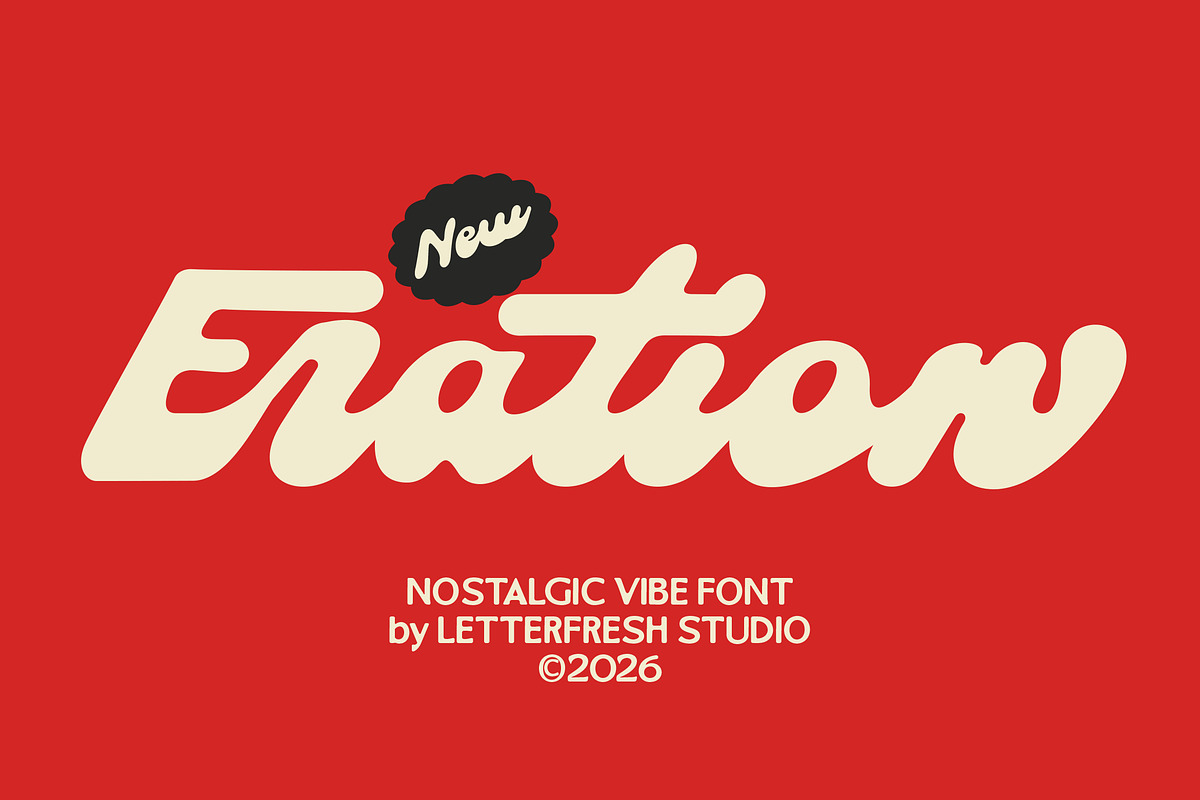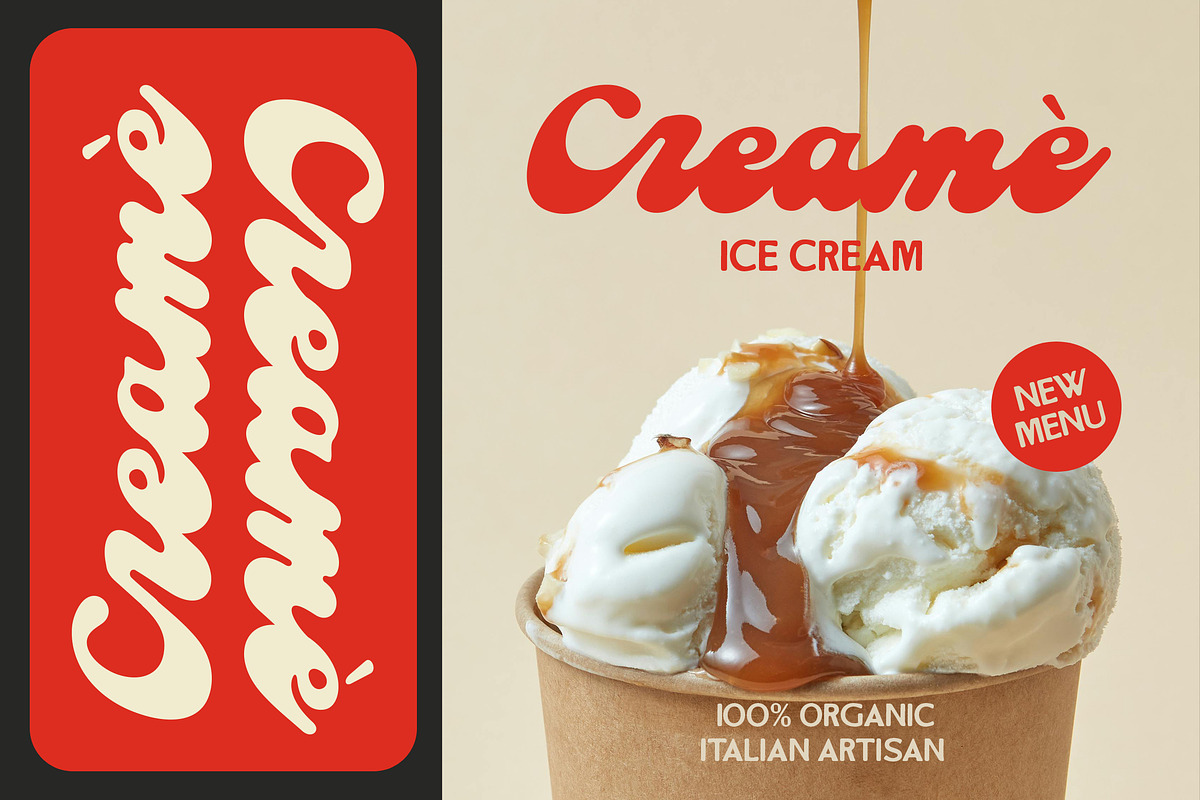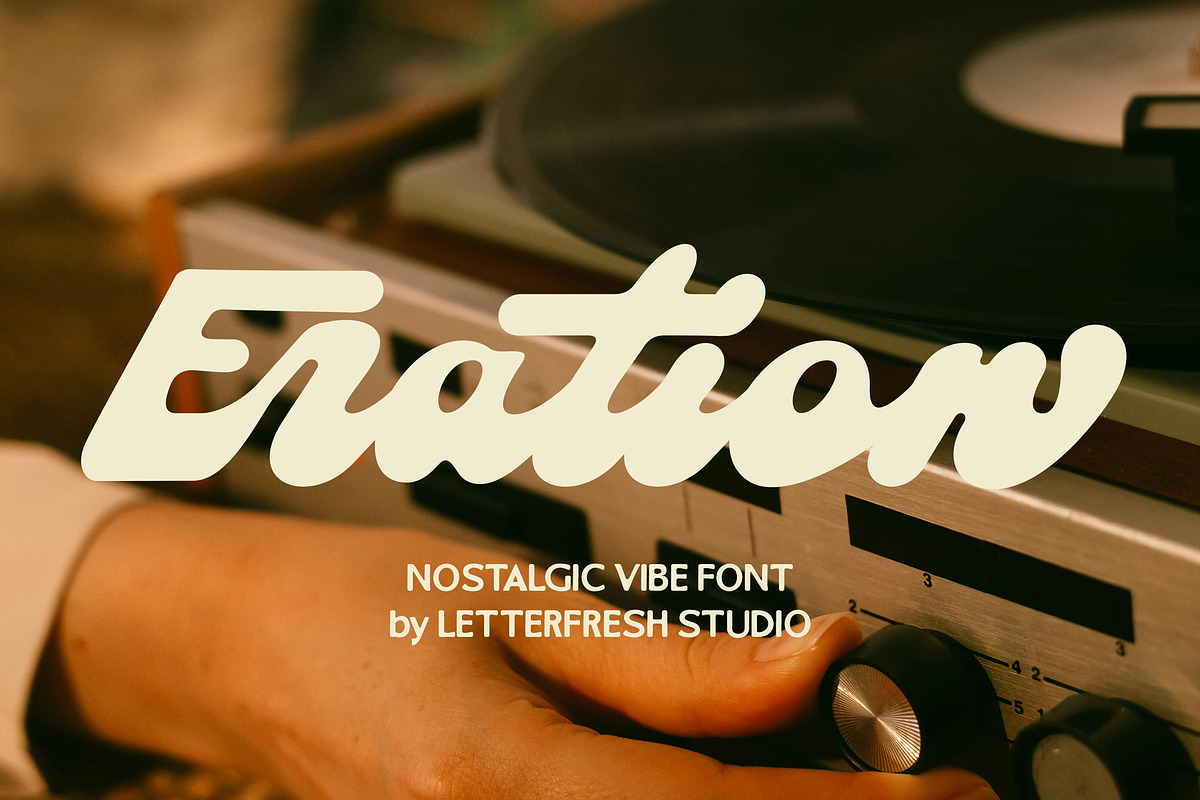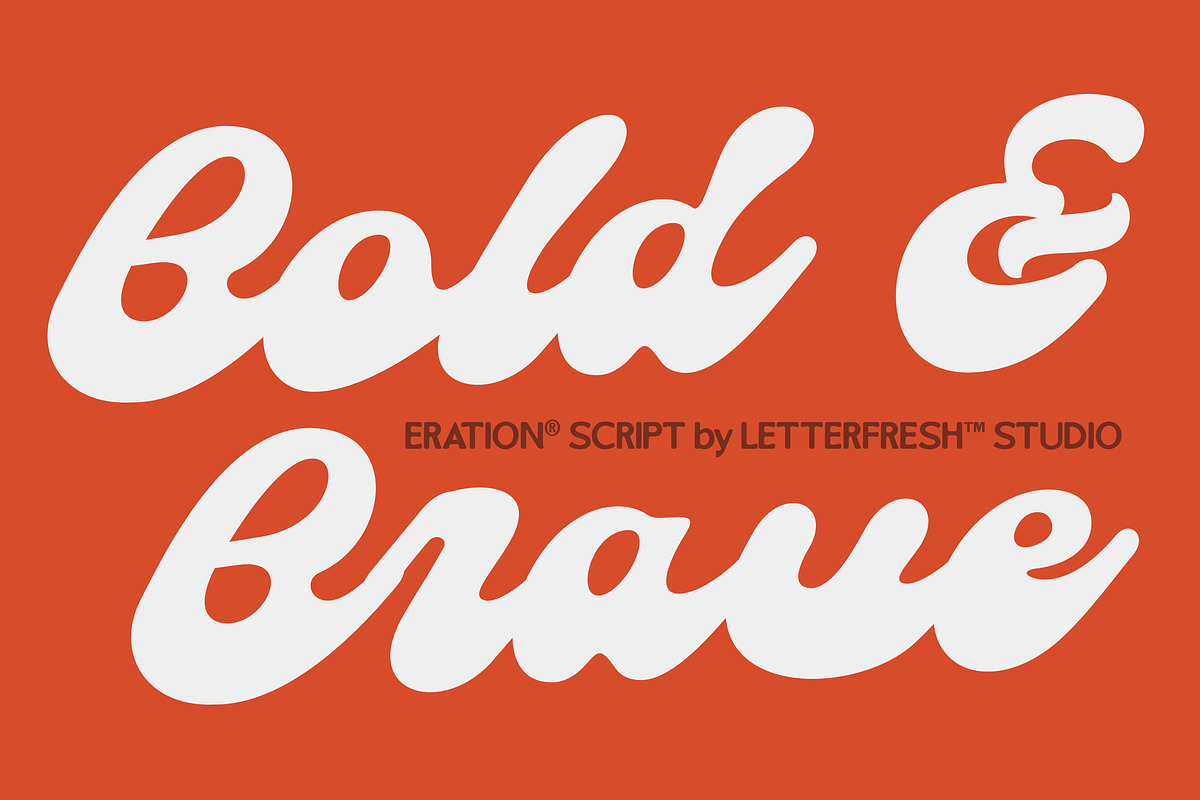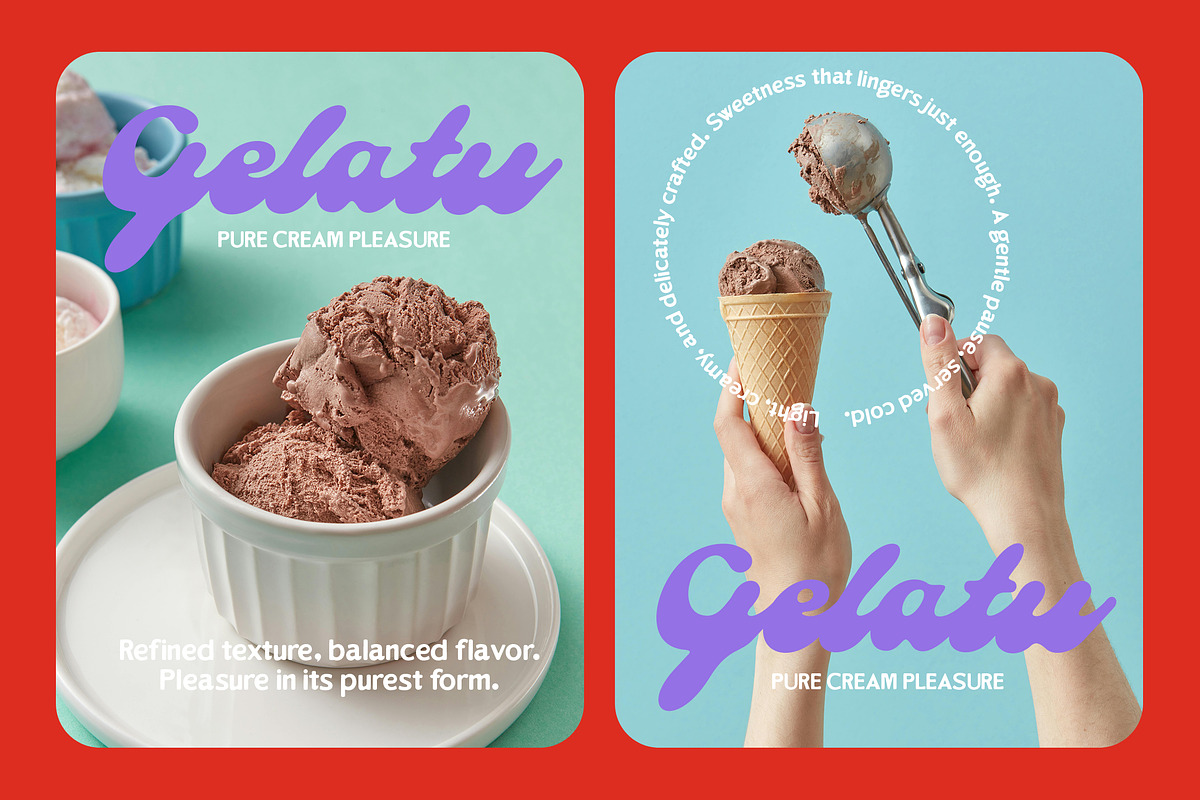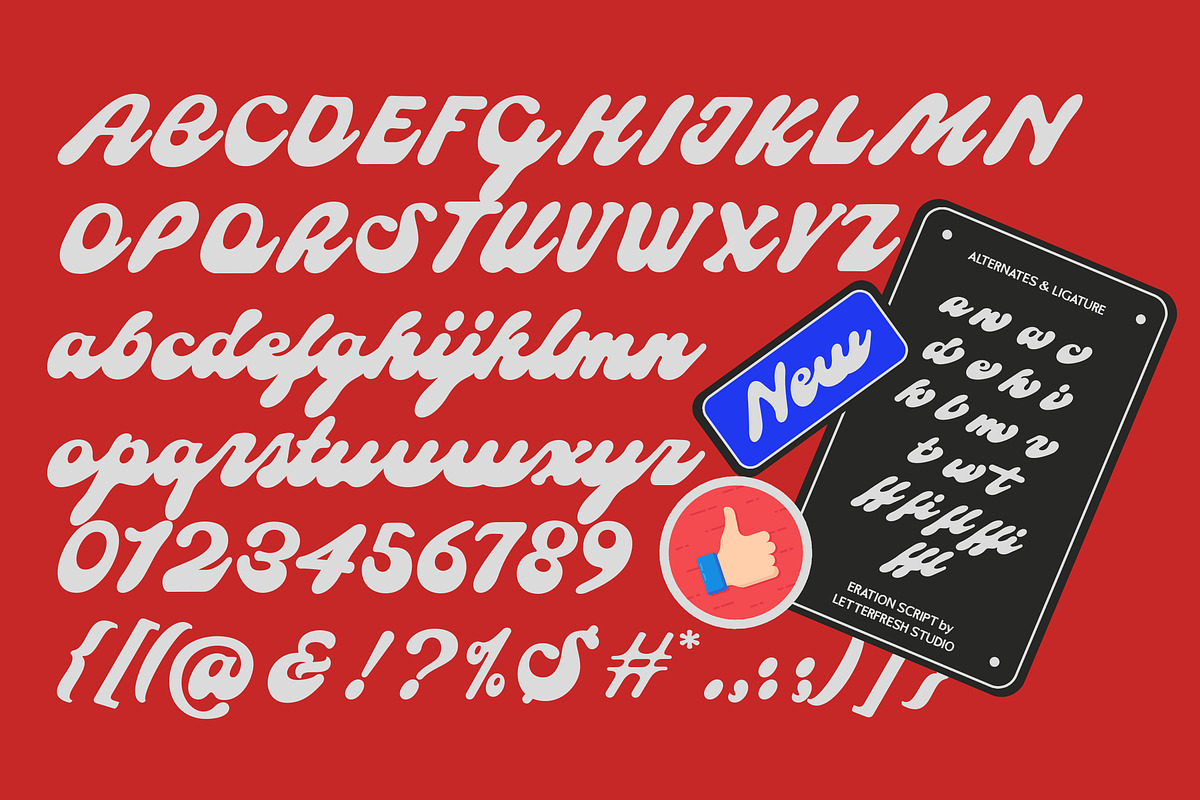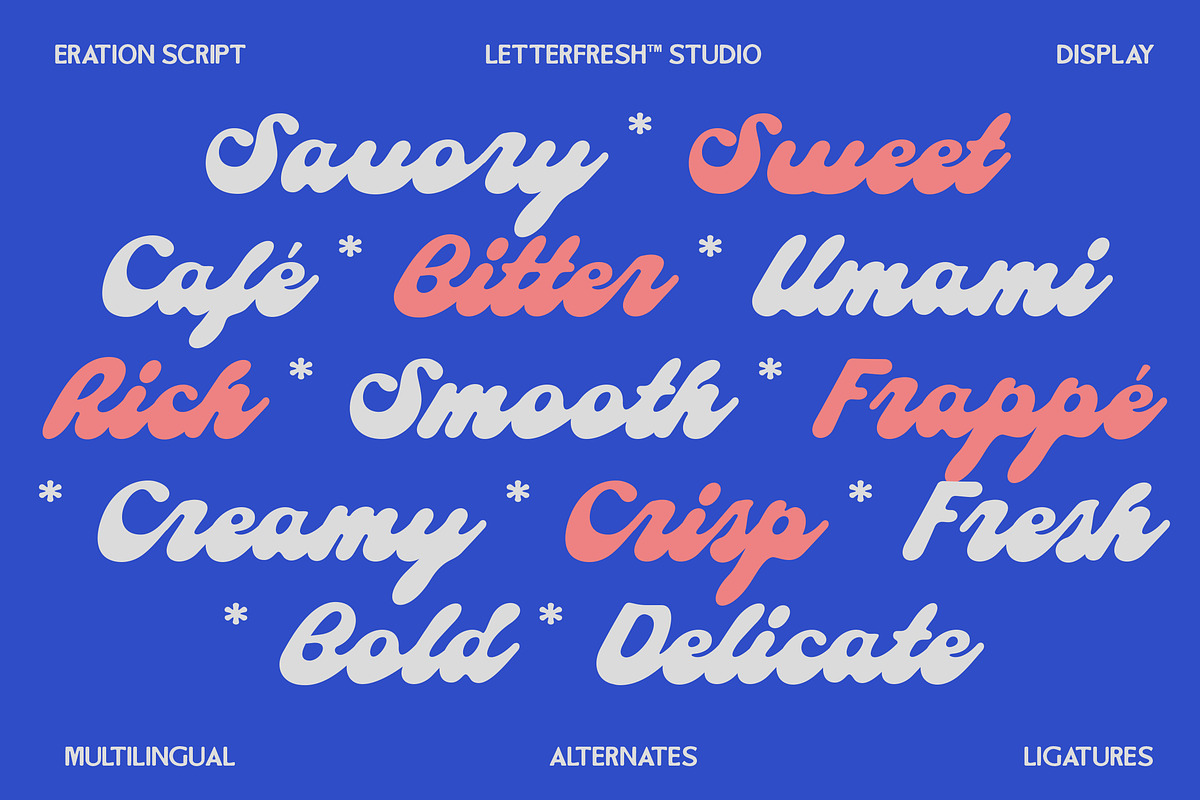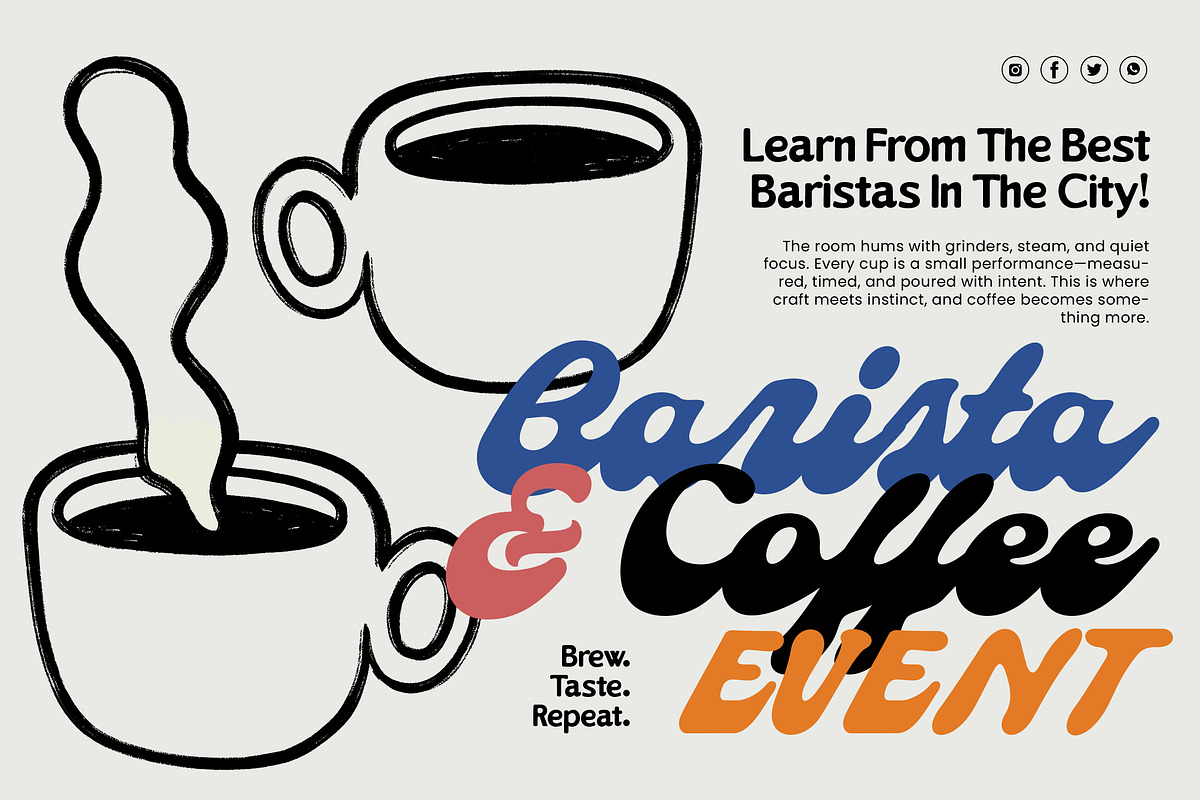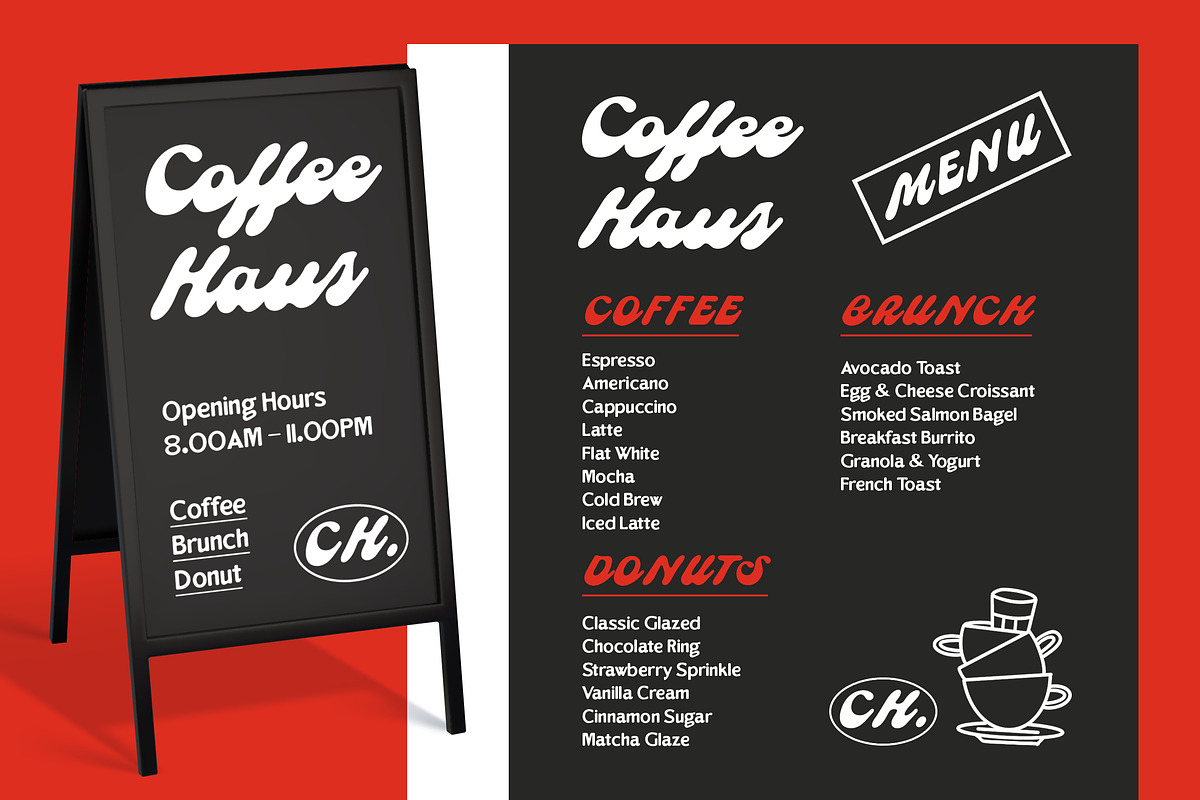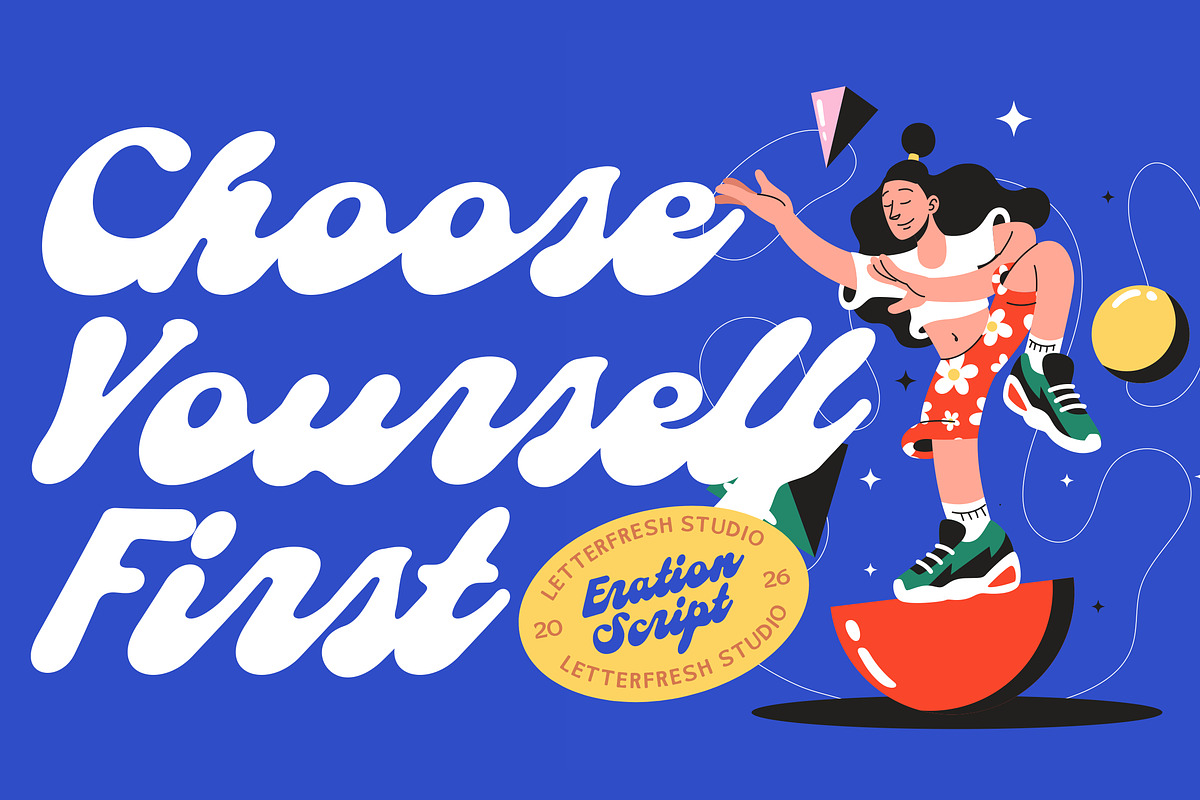
Eration Script
Meet Eration Script – where nostalgia meets bold expression. This slanted, hand-drawn typeface flows effortlessly from letter to letter, mimicking the smooth rhythm of vintage signage and classic brush lettering. Thick, inky strokes and a slightly blurred softness give it a warm, lived-in feel—like a favorite old poster or a handwritten note from the past. Perfect for branding, packaging, album covers, and retro-inspired designs, Eration Script brings personality and charm to every word. Ready to add some timeless flair to your projects? Get it today and let the flow begin.
Eration Script supports the most popular latin-based languages, you can check the symbol you need by typing a couple of words in the font preview box.